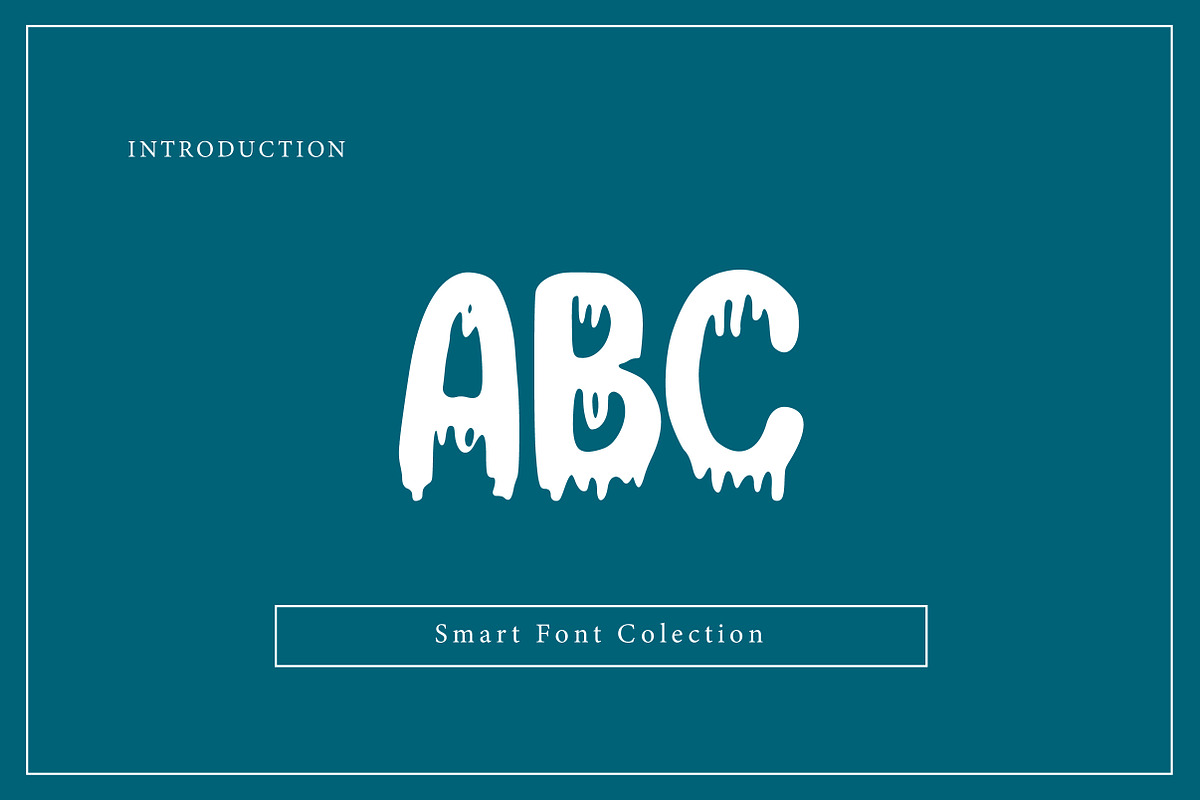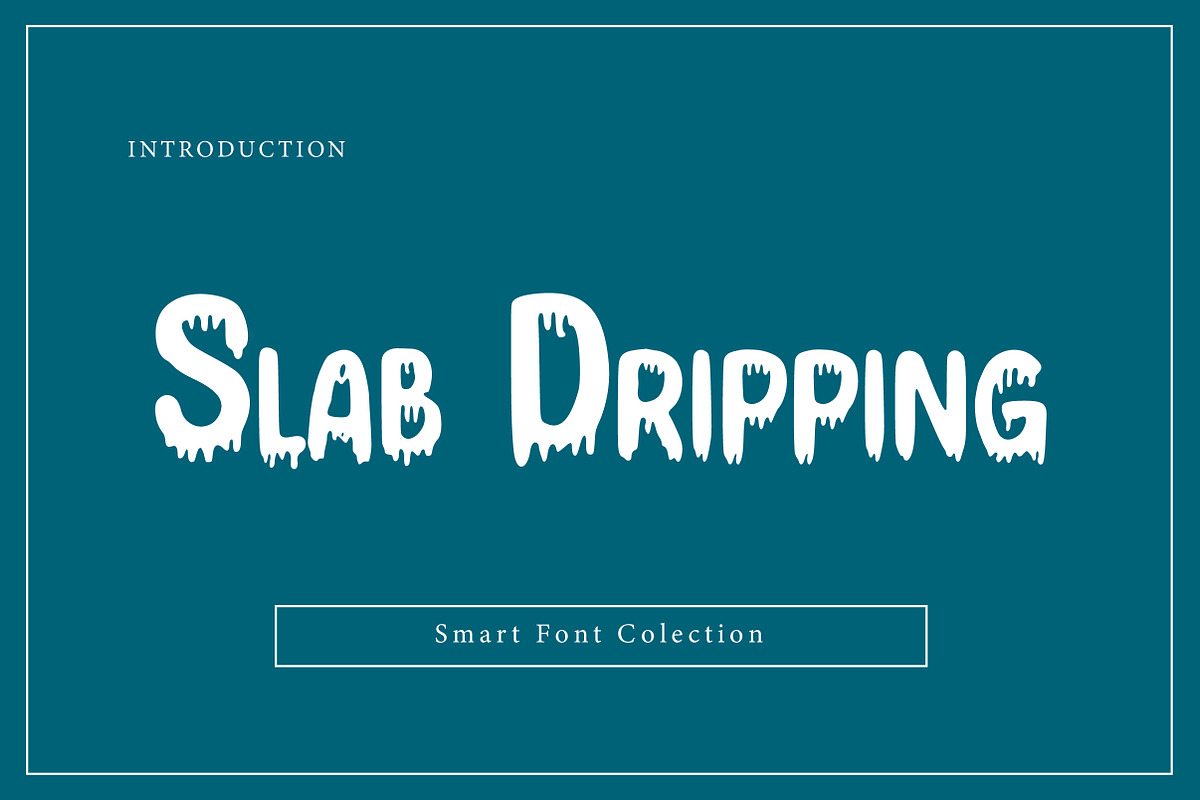
Slab Dripping
Slab Dripping is a bold and spooky dripping slab serif display font designed for horror, Halloween, and creepy-themed typography. Combining strong slab serif shapes with melting and dripping effects, this font is perfect for scary posters, movie titles, game designs, haunted house flyers, Halloween branding, stickers, and social media graphics. Slab Dripping brings a dramatic, eerie atmosphere while maintaining bold readability for eye-catching headlines.